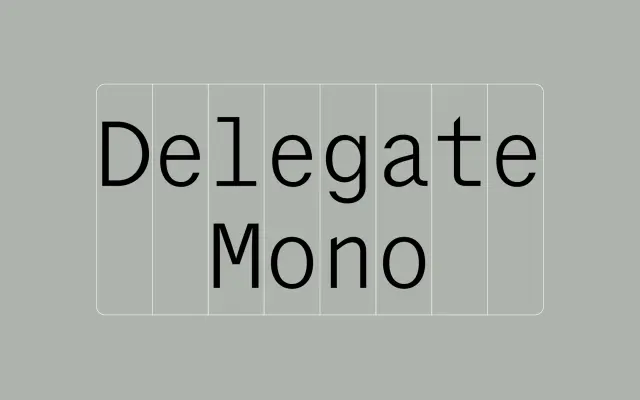
Delegate
A grotesque sans exploring the middle ground between cold European grotesks and warm American gothics, published by Commercial Type in 2024.
Sitting between the anonymity of European functional grotesks and the warmth of American gothic tradition, Delegate aims for the kind of invisibility that comes from carefully considered idiosyncratic details rather than blandness. It was designed with functionalism as both purpose and aesthetic, making it suited to text-heavy applications where personality should remain understated. Published by Commercial Type in 2024, it is the studio type for November's own website.
Delegate sits squarely in the grotesque sans-serif tradition, explicitly positioned between cold European grotesks and warm American gothics, drawing on anonymous functional grotesque models.